Every month we put together this collection of the best new fonts we’ve found online in the previous weeks.
In this month’s edition, there are lots of historically-inspired typefaces, more of the growing trend for French traditions, and several families offering multiple optical sizes. Enjoy!
Spica
Spica is inspired by historical sources. At smaller sizes, it is extremely legible. At larger sizes, it’s evident how many different ideas have been tamed in a single family. Cyrillic and Arabic versions are also available.
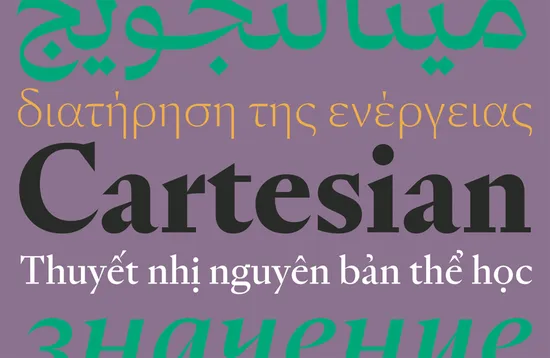
Solena Pro
The baroque detailing of Solena Pro, particularly the exaggerated, organic serifs, lend it an air of exuberance and femininity. It’s available in 14 styles, from Light through Black.
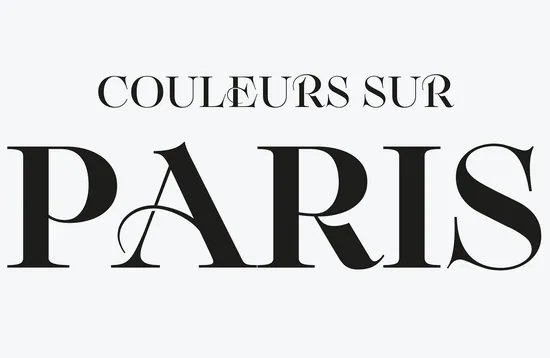
Montris
Montris is a neoclassical serif with high-contrast and a number of details that add an expressive quality. It‘s available in three optical sizes — Small, Medium, and Large, which roughly translate to Body, Headline, and Poster.
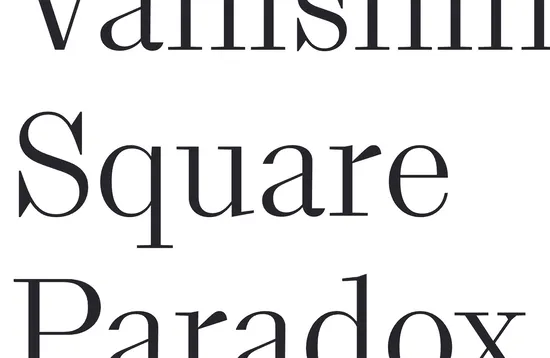
TF Galina
TF Galina is a display font that combines retro charm with a modern approach. The result is a warm, friendly typeface that sets the tone for a whole design.
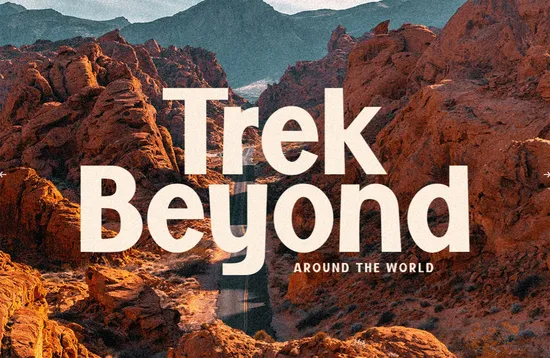
Esperanza
Esperanza was originally designed for the Athens Cultural Center in upstate New York. It’s inspired by lettering stamped onto local, 19th century stoneware. It’s available in Headline and Stencil variations.
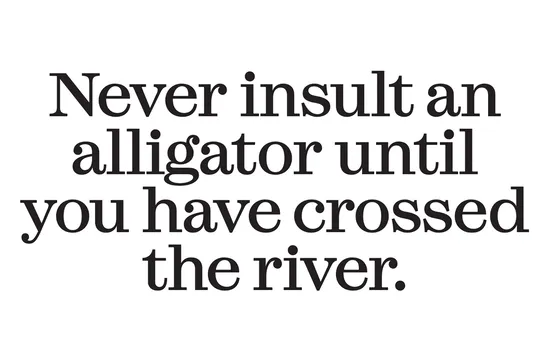
Juana
Juana is a stylish sans-serif with a high-contrast, and tapered terminals. It feels refined, and effortless, as if naturally formed. But has, of course, been carefully drawn. There’s a set of alternate characters available.
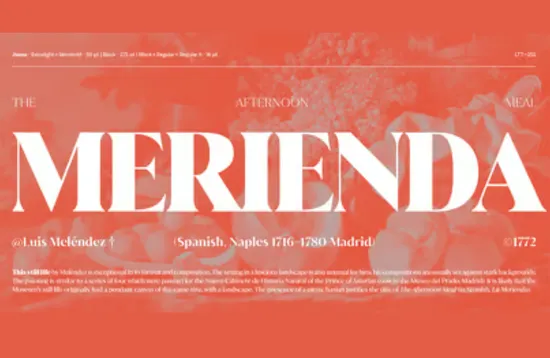
Stasis
Stasis is a geometric sans serif with three distinctive sets of alternates — Stencil, Slice, and Notch — they can be combined to elevate the simple forms to display-worthy shapes.
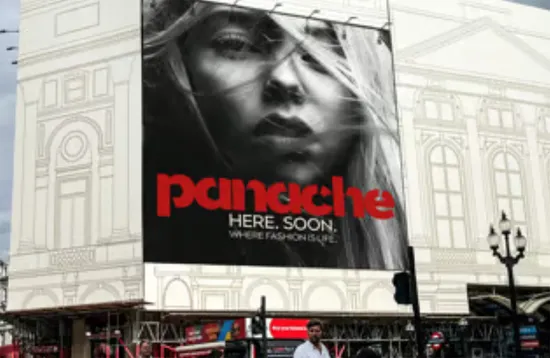
Arsen
Arsen is an Elzevir — an Old Style genre popularized in France. It is designed around four optical sizes: Text, Normal, Affiche, and Display. Arsen has been carefully drawn to ensure optimal word spacing.
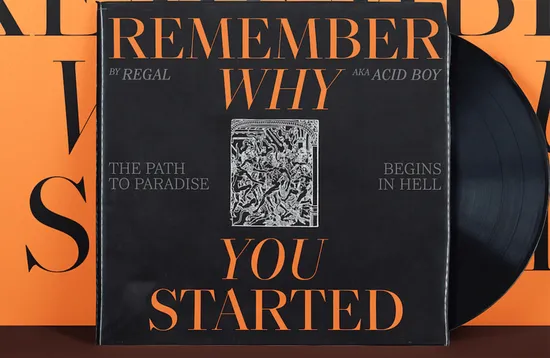
Racina
Racina is a sans-serif with high contrast and curved, flared strokes that create a warm, friendly design. It’s intended to evoke the Sicilian landscape.
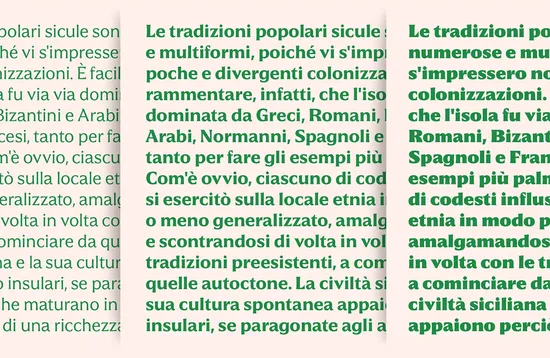
Rialta
Rialta is a clean, crisp geometric sans serif. It works equally well at small and large sizes. Everyone should have at least one font like Rialta to hand. There are eight different weights available, with accompanying italics.
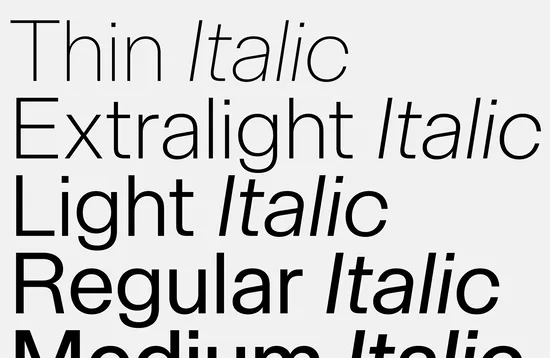
TT Travels Next
Last month we saw TT Travels Text, now we have the release of TT Travels Next, an experimental display typeface that explores what TT Travels would look like if it threw caution to the wind and enjoyed itself.
Peleton
Peleton is a contemporary serif. It uses sharp serifs to cut a definitive line through the page. Three different styles are available: Text for body text, Headline for titles, and Poster for very large text.
Chakai
Chakai is a monumental sans, with flared strokes nodding in the direction of a serif heritage, and creating a carved quality when used in all-caps. The same qualities become less formal in the lowercase.
Quick Writers
Quick Writers is digitized lettering in a casual, almost unconsidered style. It works great as an accent font or to add a sense of a human hand in an otherwise formal design.
Alvida Fatface
Alvida Fatface is another retro-inspired display face with flared strokes that, on this occasion, tip it into the serif category. As the name implies, it’s nice and chunky and is a great display type option.